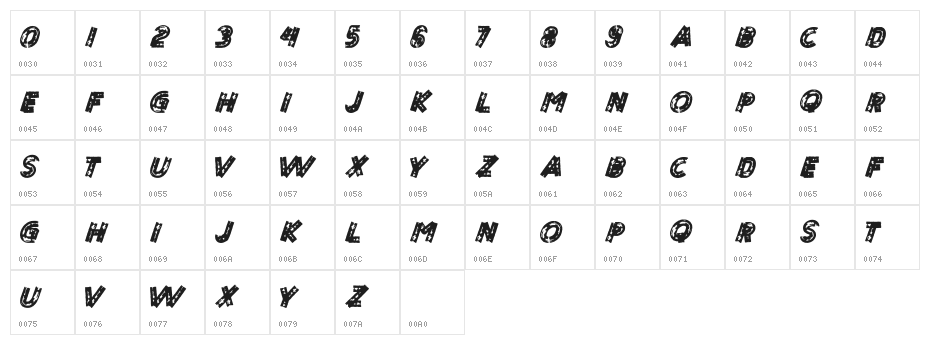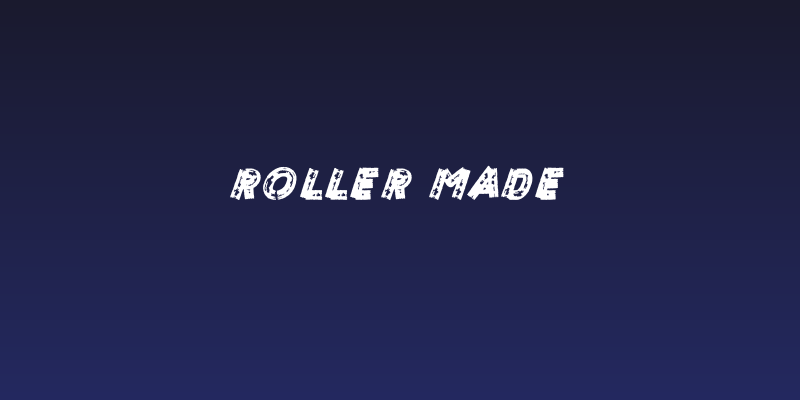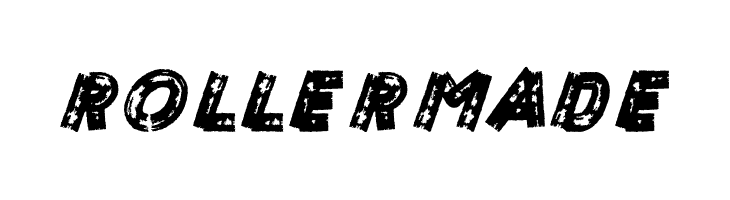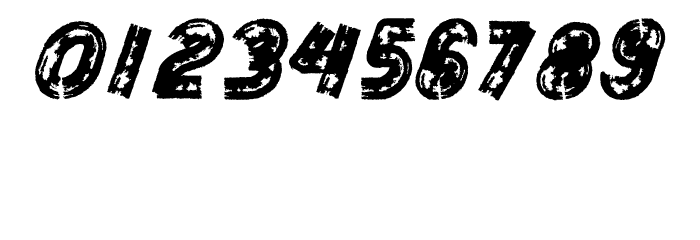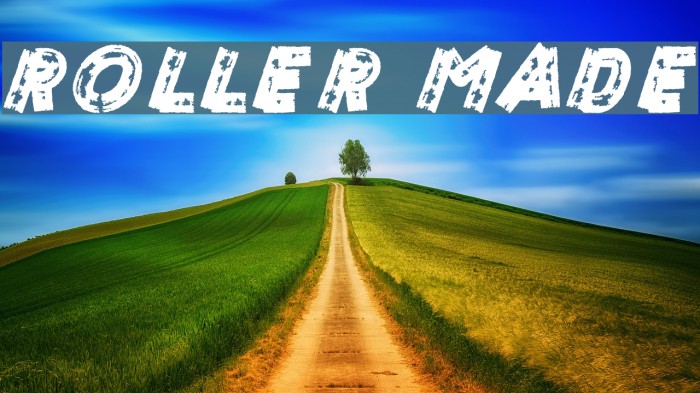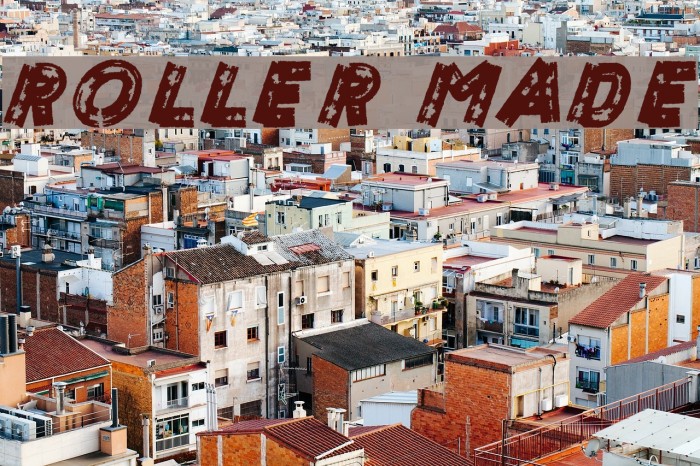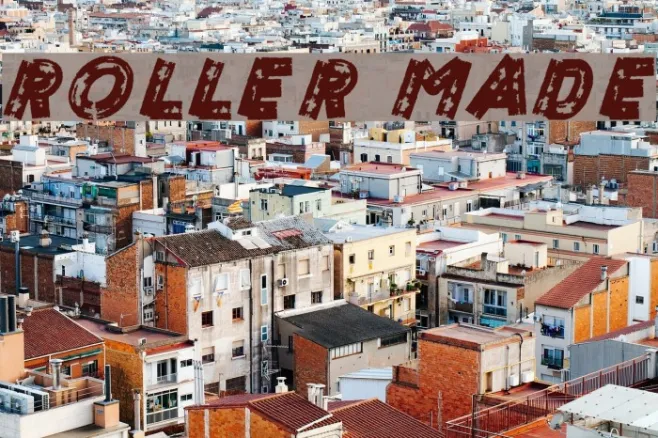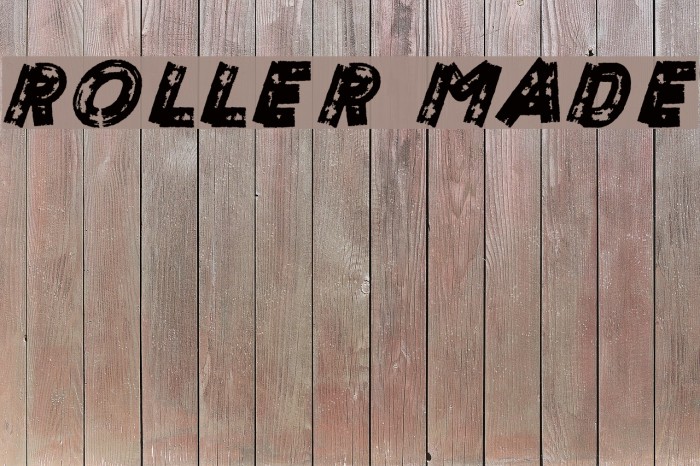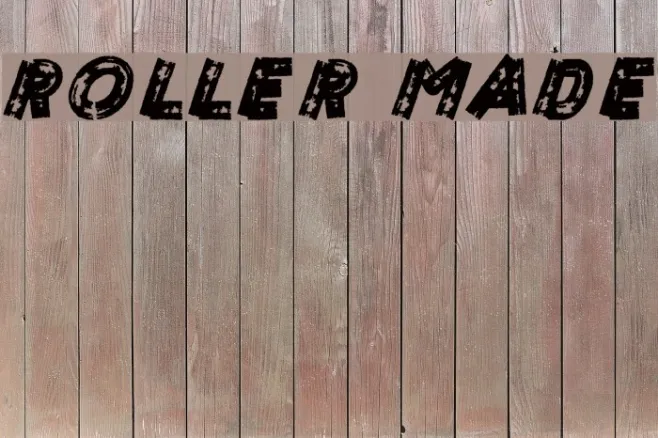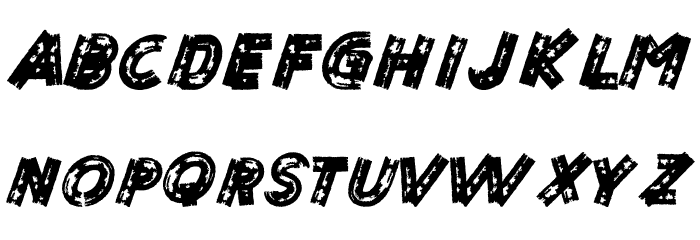
ROLLER MADE Font
ROLLER MADE Description
This font features a bold, distressed style with a textured appearance that mimics a roller-printed effect. The characters are uppercase and numerals, each with a unique, worn-out look that adds a rugged and dynamic feel. The bold strokes and irregular patterns give it a strong visual impact, making it ideal for projects that require a gritty, industrial aesthetic. The font's design suggests movement and energy, suitable for creative and edgy designs.
| Proposed Projects | Ideal for posters, album covers, urban-themed designs, and branding that requires a gritty, industrial look. |